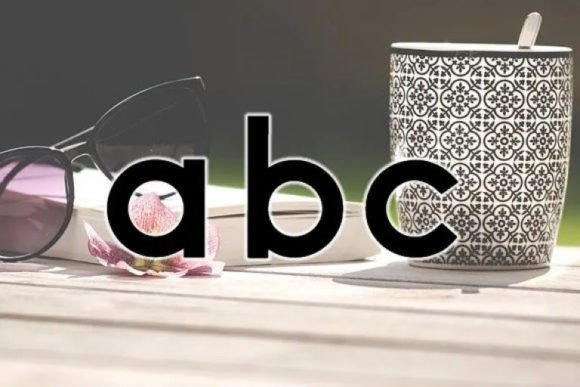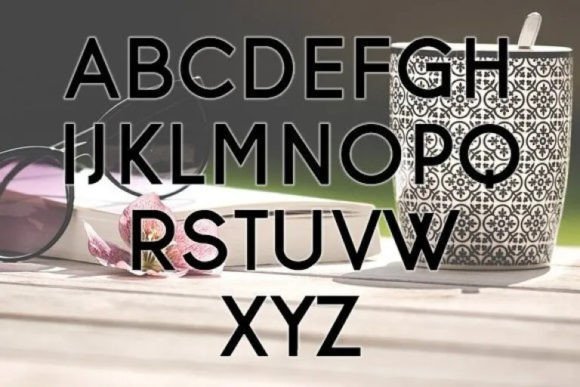
Introduction to Frederic Font
Frederic is an awesome Sans Serif font with an elegant and catchy look.
Use this font on posters, flyers, and much more .
Key Features of Frederic Font
Why Choose Frederic Font?
Frederic Font offers exceptional quality and versatility, making it a valuable addition to your design toolkit. Whether you’re creating for personal projects or commercial use, Frederic Font delivers professional results.